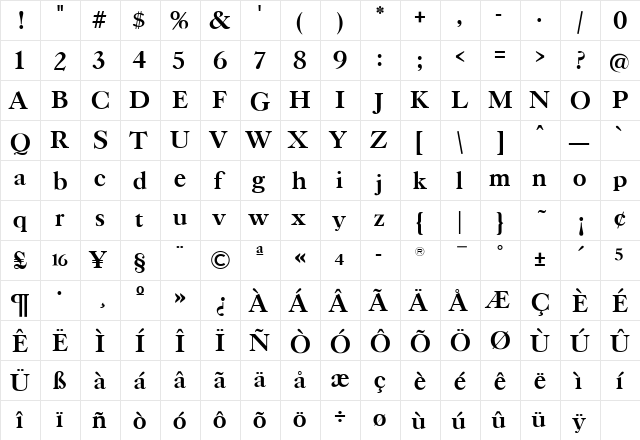
TFCaslonTen Bold
Design Context for TFCaslonTen Typeface
TFCaslonTen offers clean, dependable letterforms without strong stylistic allegiance, making it a practical choice for designers who need flexibility. The heavy weight commands attention and anchors typographic hierarchies.
Pro Tip: Use TFCaslonTen in both headline and body roles to test its range before committing to a single application.